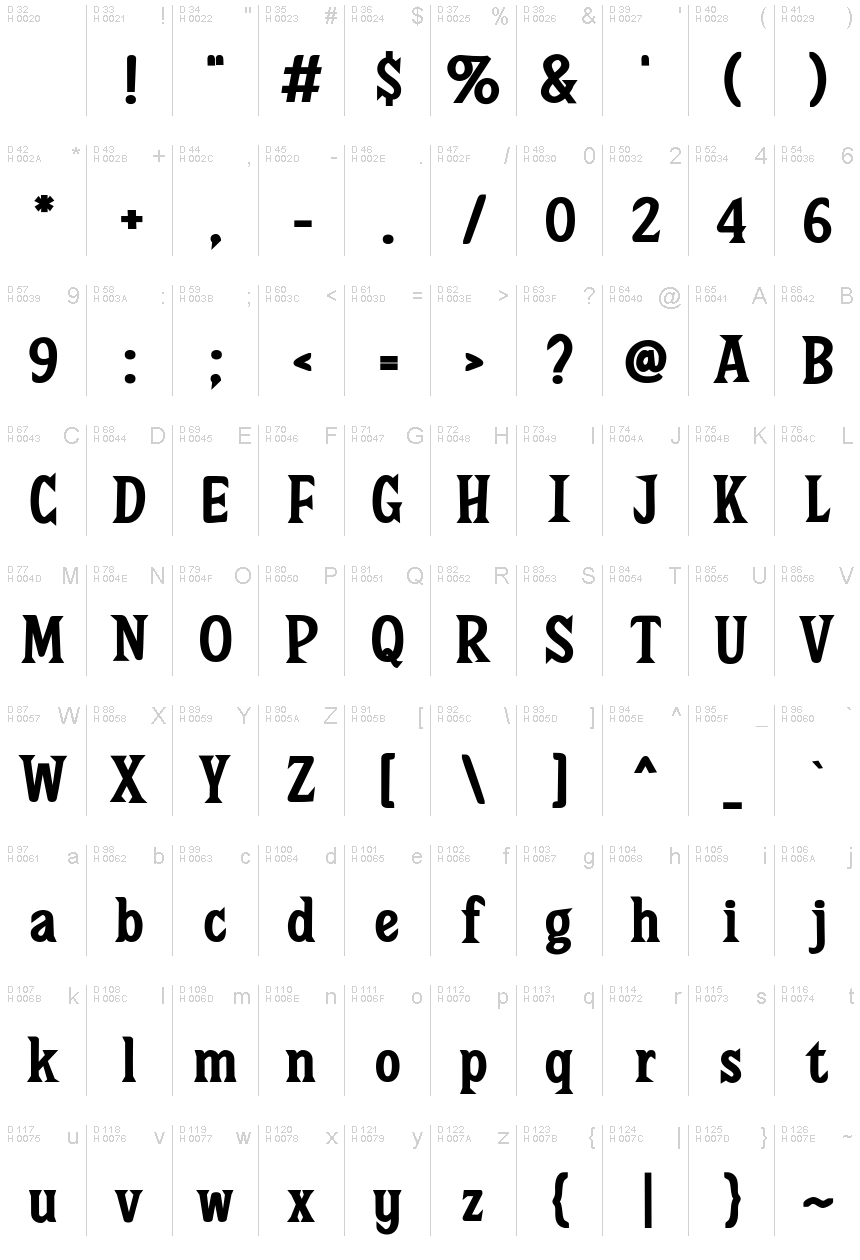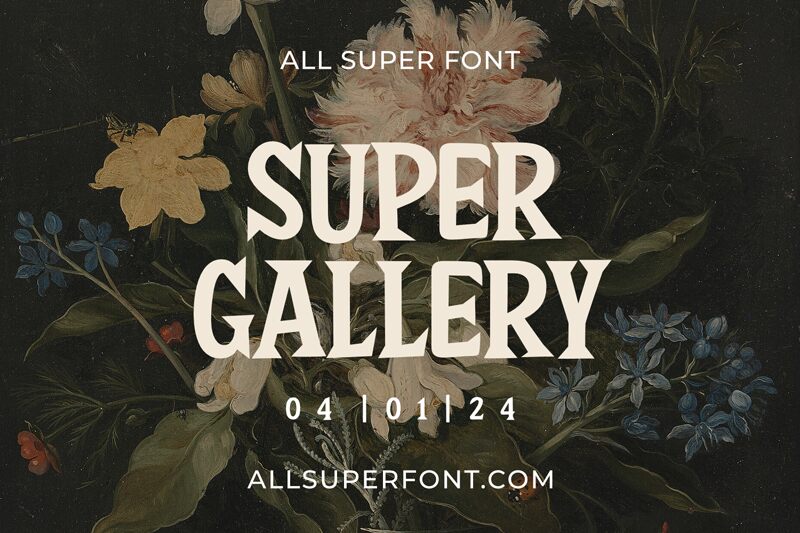
Super Gallery
Super Gallery is a captivating font that exudes a sense of whimsy and playfulness. Designed by fsuarez913, this condensed display font boasts a distinctive and visually striking appearance. The bold, geometric letterforms and dynamic curves create an eye-catching effect, making it an excellent choice for adding a touch of personality to your designs.
This font's versatility shines through, making it a suitable choice for a wide range of design applications. Whether you're creating eye-catching headlines, crafting impactful branding materials, or elevating the aesthetic of your social media graphics, Super Gallery's unique character can help your content stand out and leave a lasting impression on your audience.